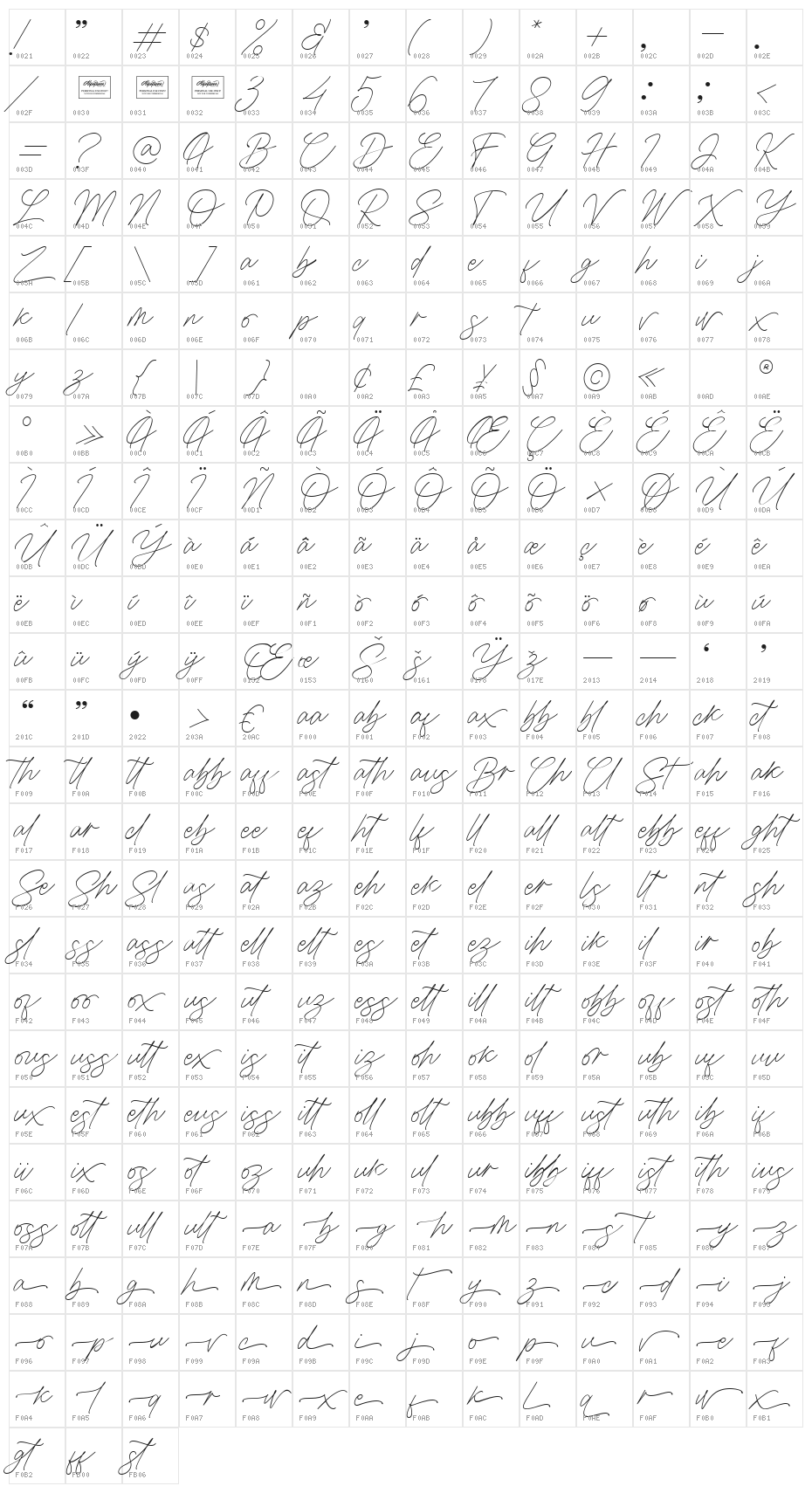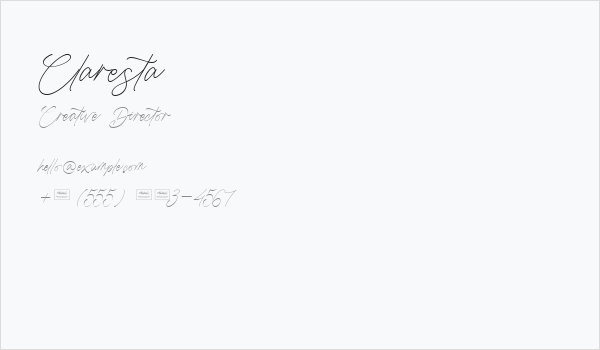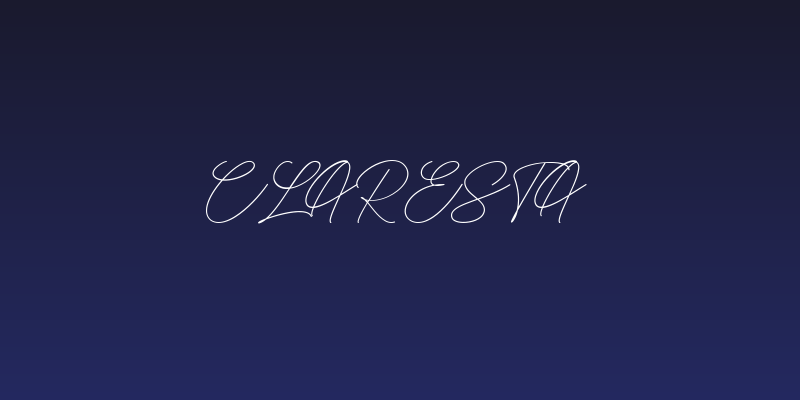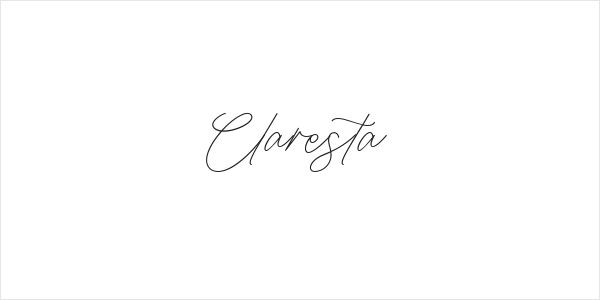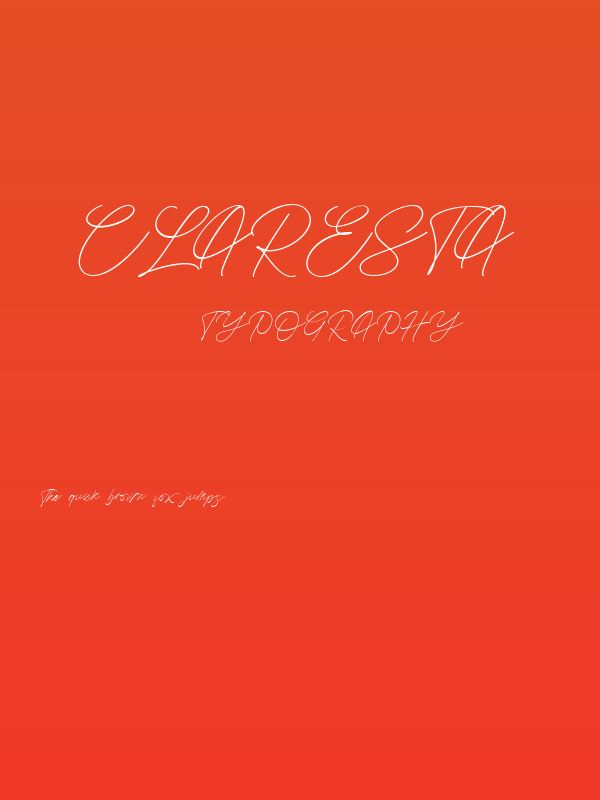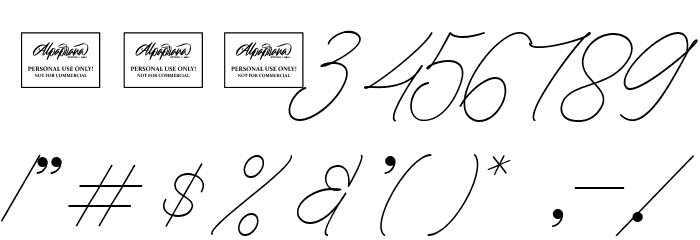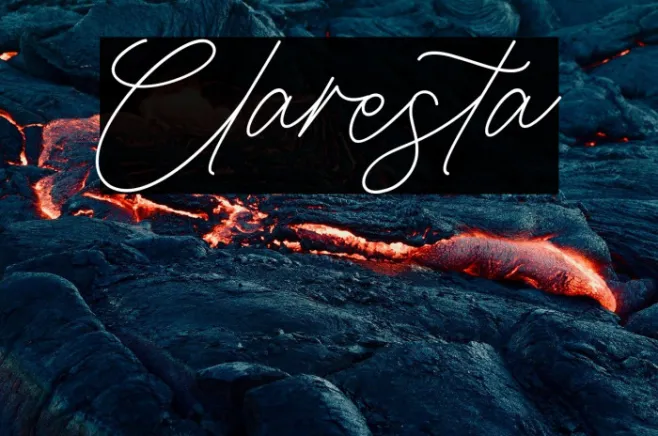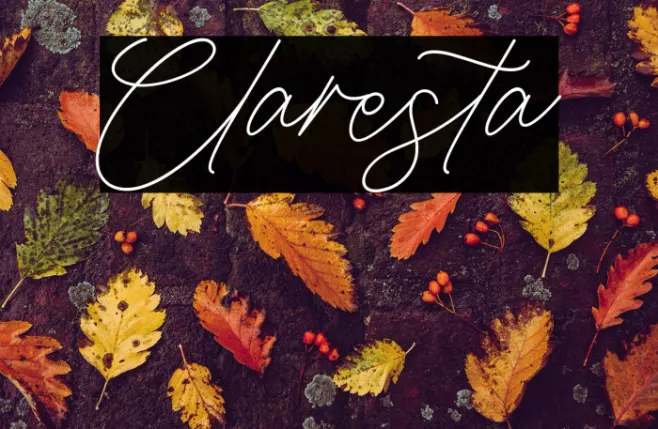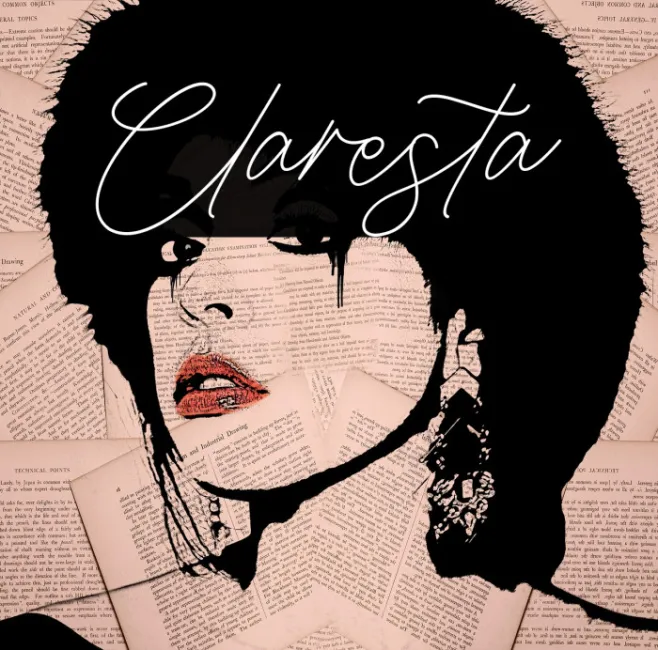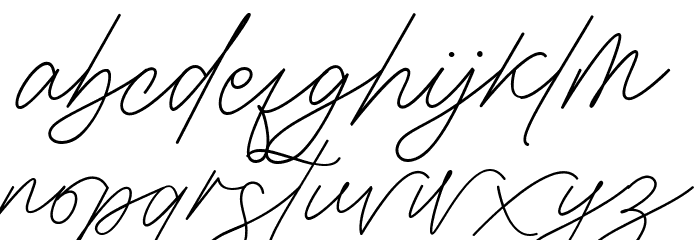
Claresta Font
Claresta Description
This elegant script font features fluid, cursive strokes that mimic the natural flow of handwriting. The characters are connected, creating a seamless and sophisticated appearance. The uppercase letters are slightly more ornate, with flourishes that add a touch of elegance. The lowercase letters maintain a consistent style, with smooth curves and loops. The numerals and special characters are designed to complement the overall script style, ensuring a cohesive look across all text. This font is perfect for projects that require a personal, handwritten touch, such as invitations, greeting cards, and branding materials.
| Proposed Projects | Ideal for wedding invitations, personal branding, greeting cards, and elegant stationery. |